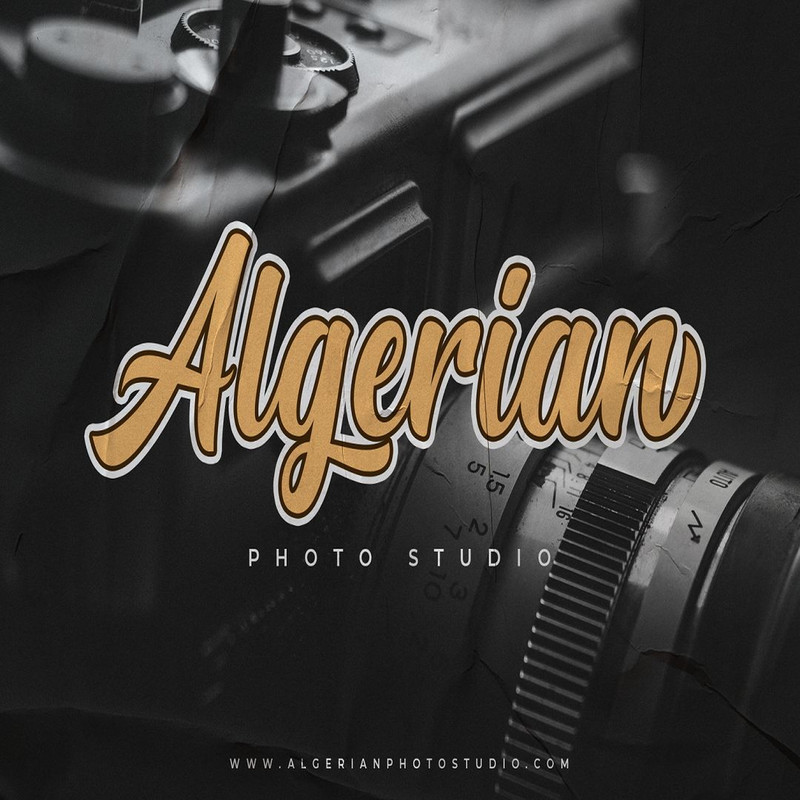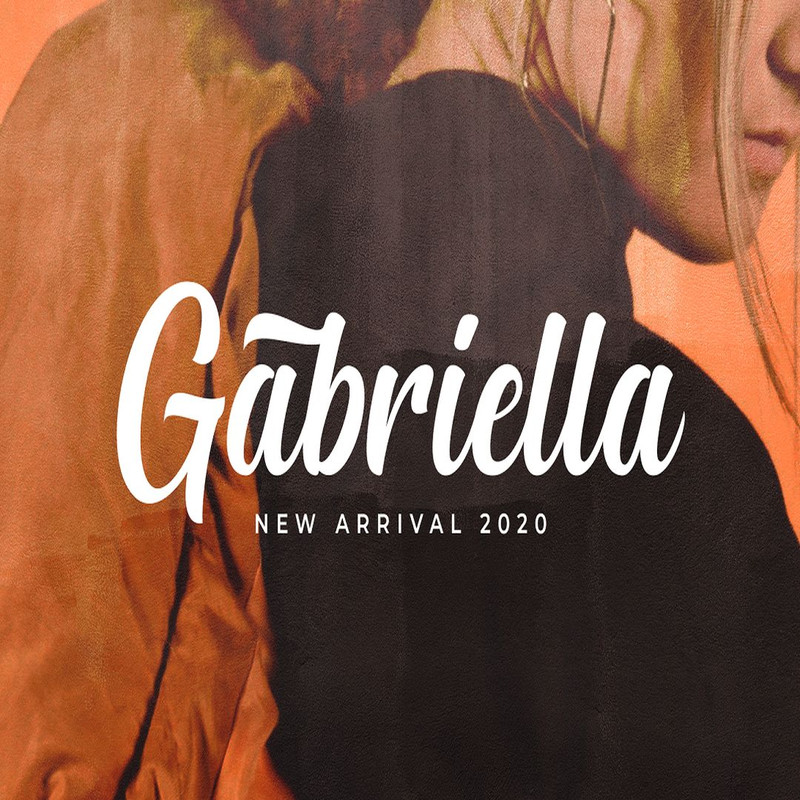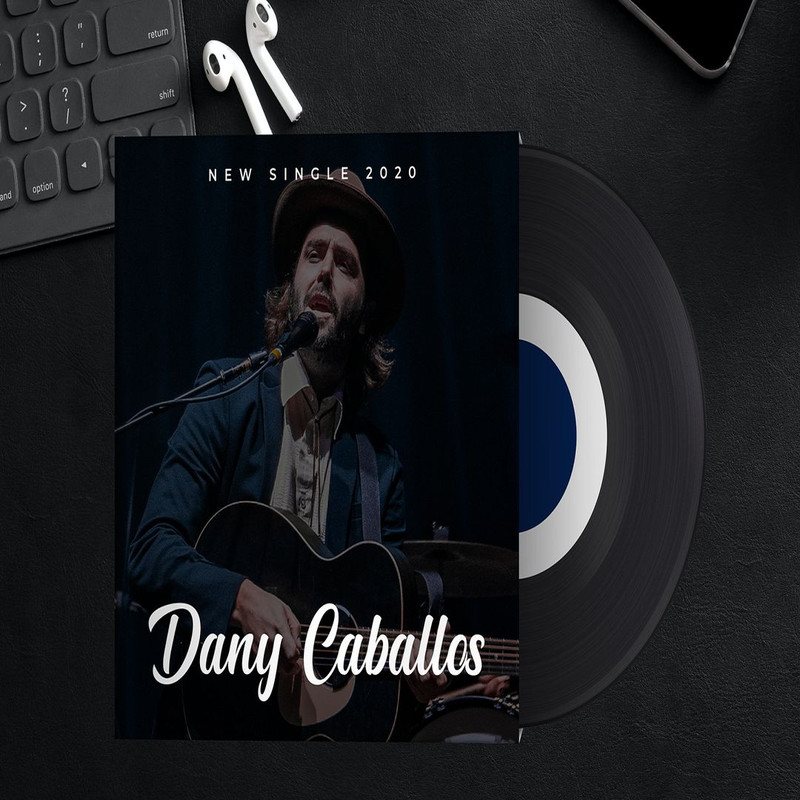
Mathline Bold Script Font Trending Fonts - Digital Font
Mathline is a casual bold script font inspired by fashion trends, this font is perfect for use as logos, posters, logotypes, printed quotes, invitations, cards, product packaging, headers, letterheads, apparel designs, labels, and etc.